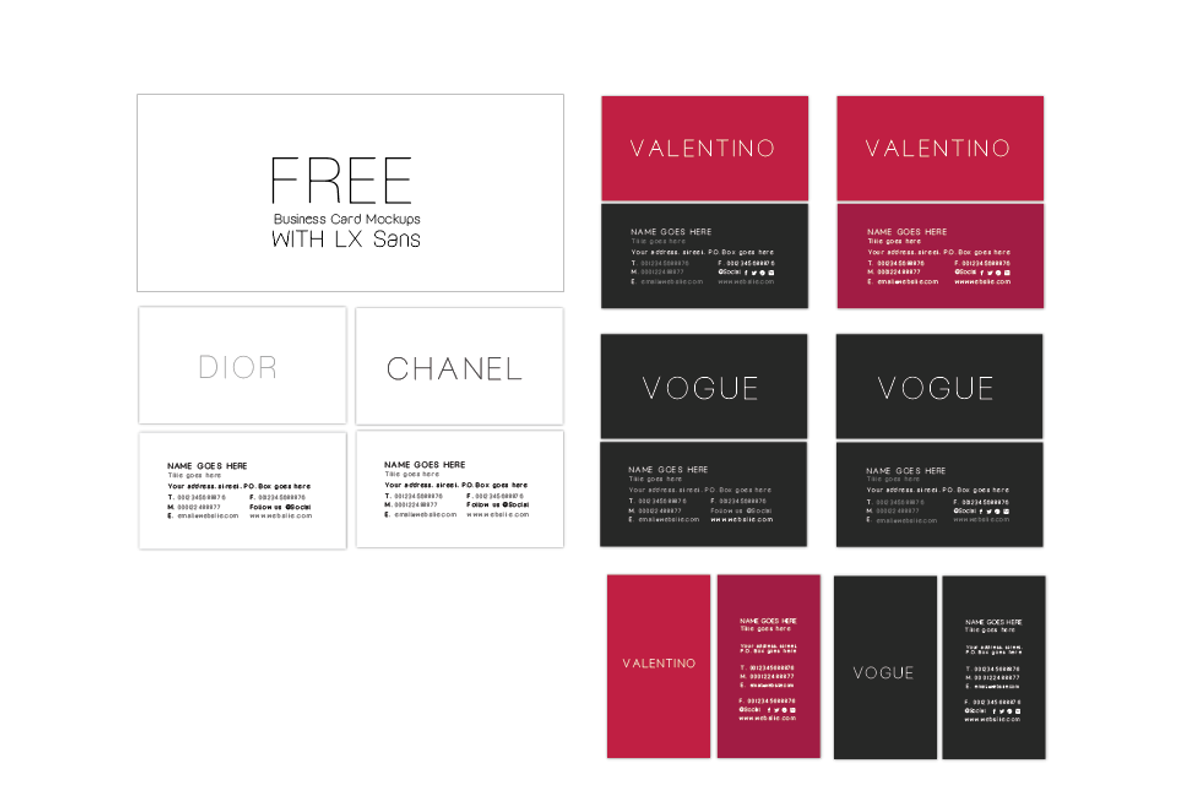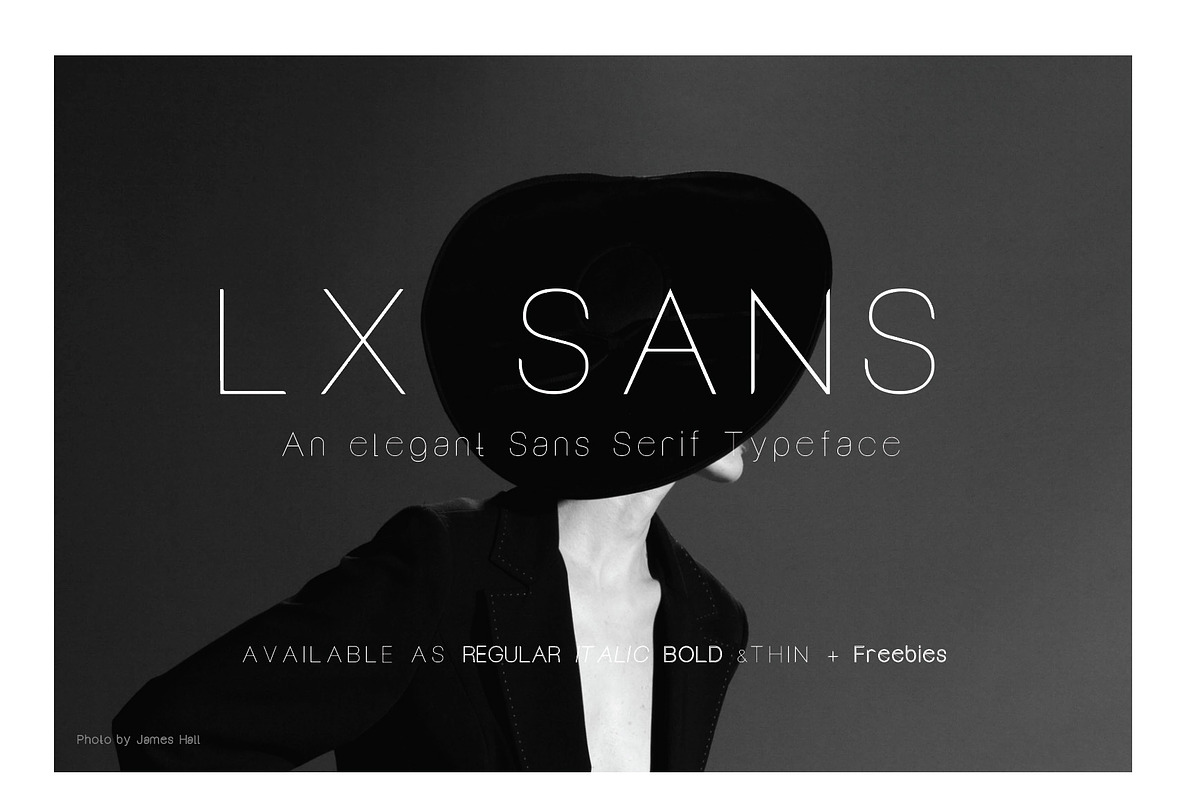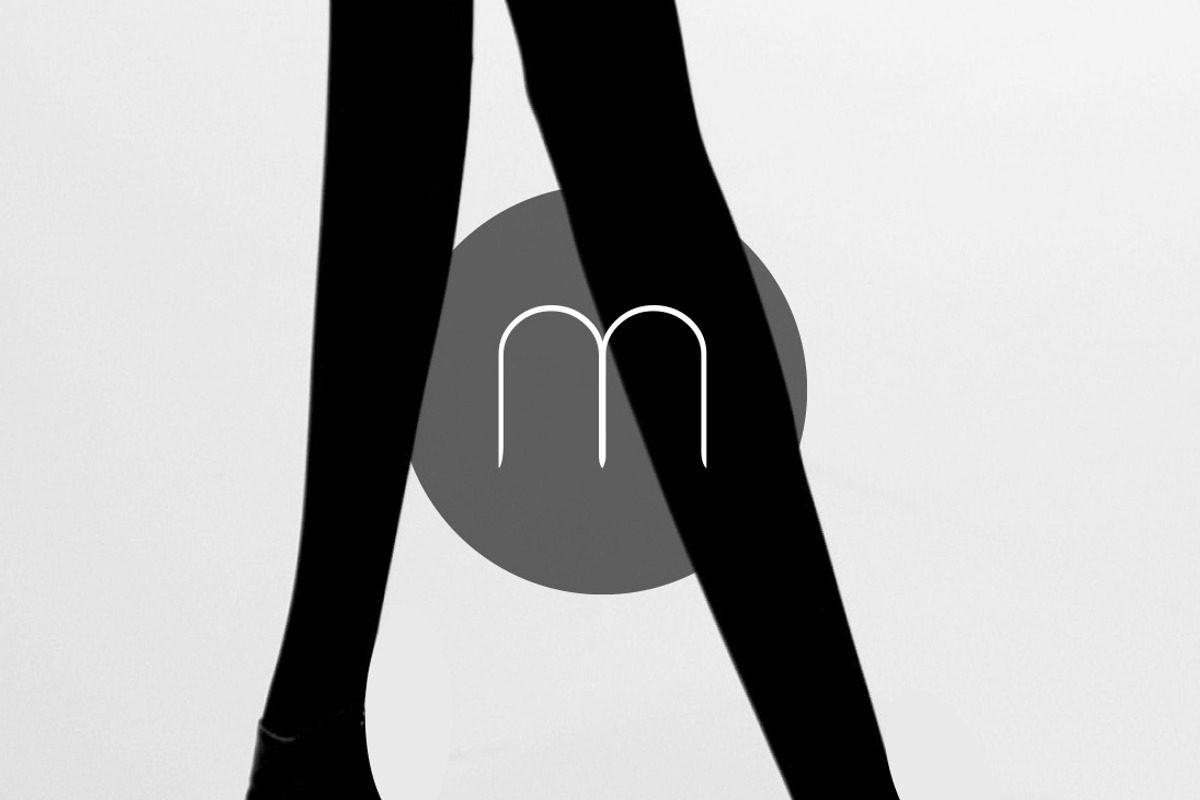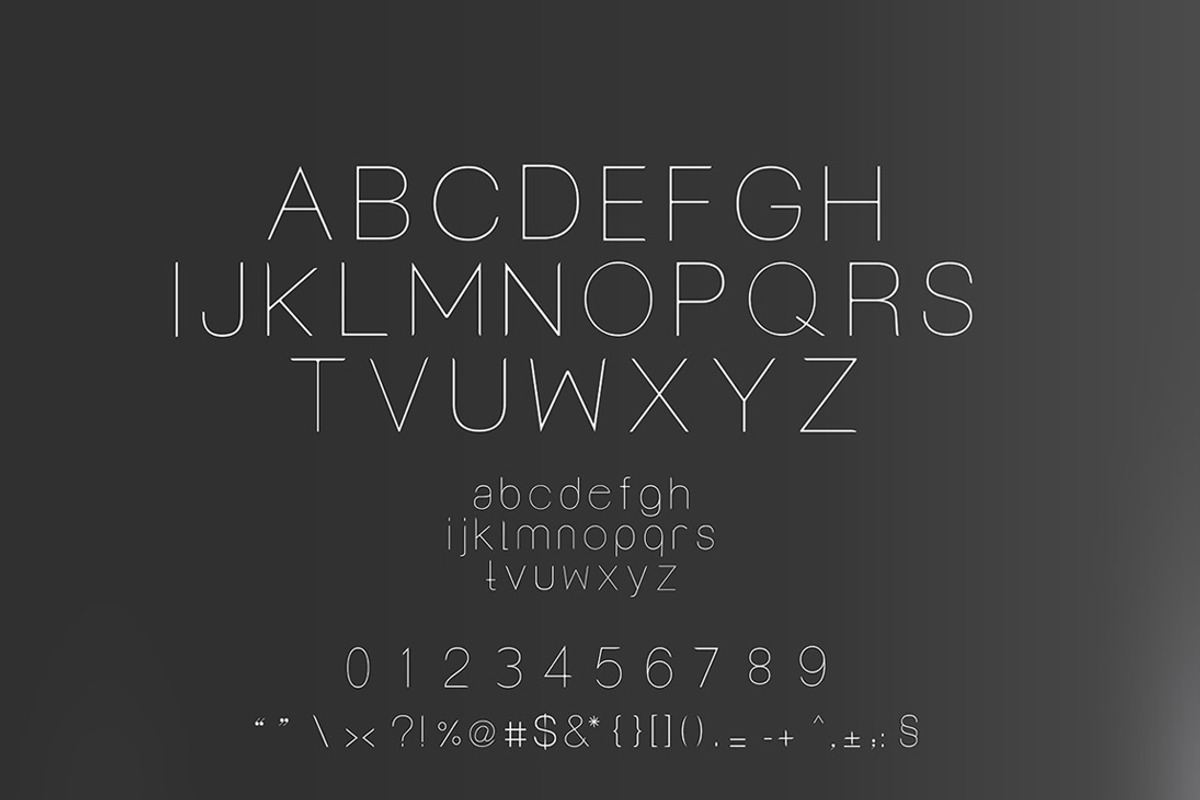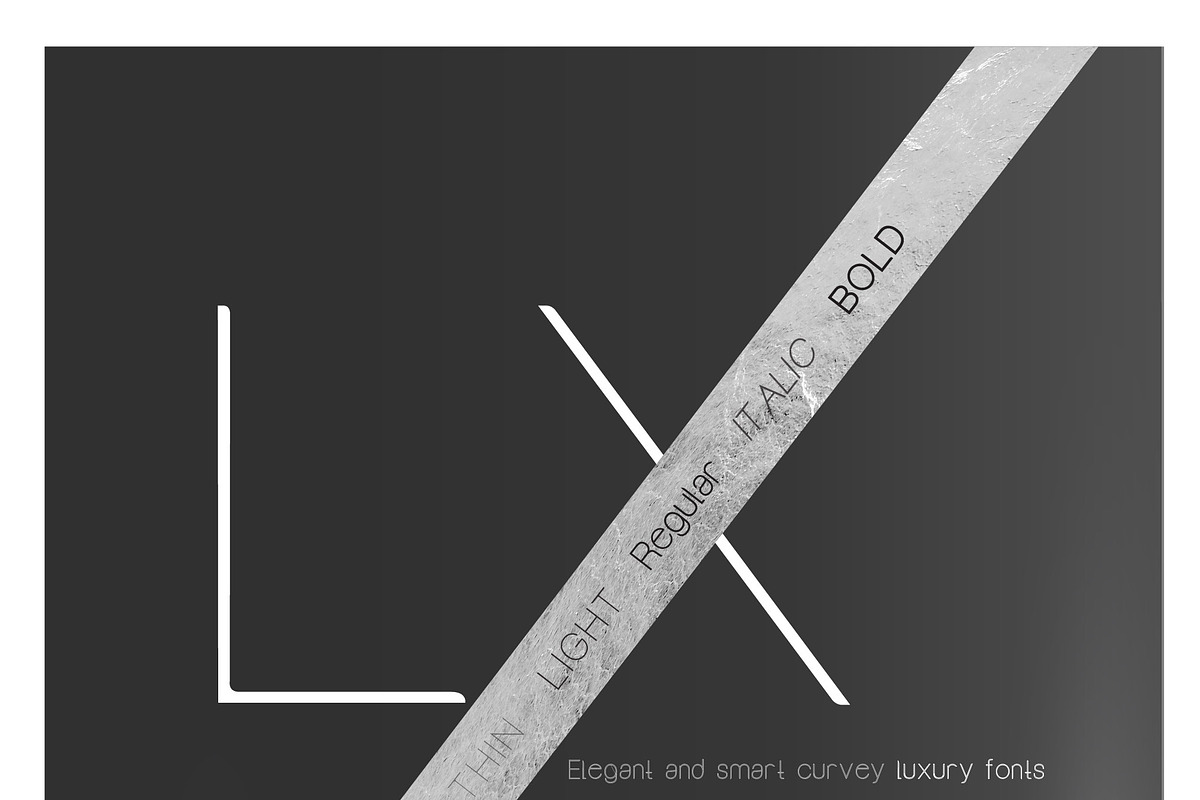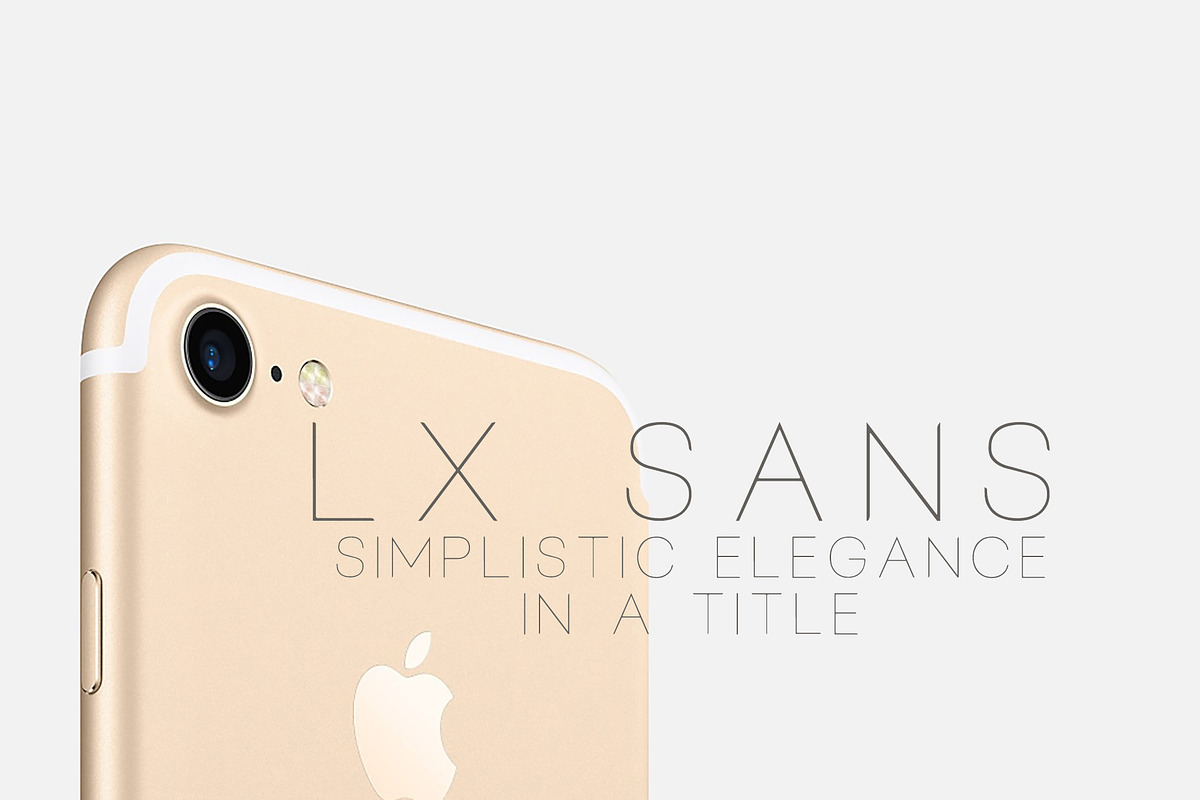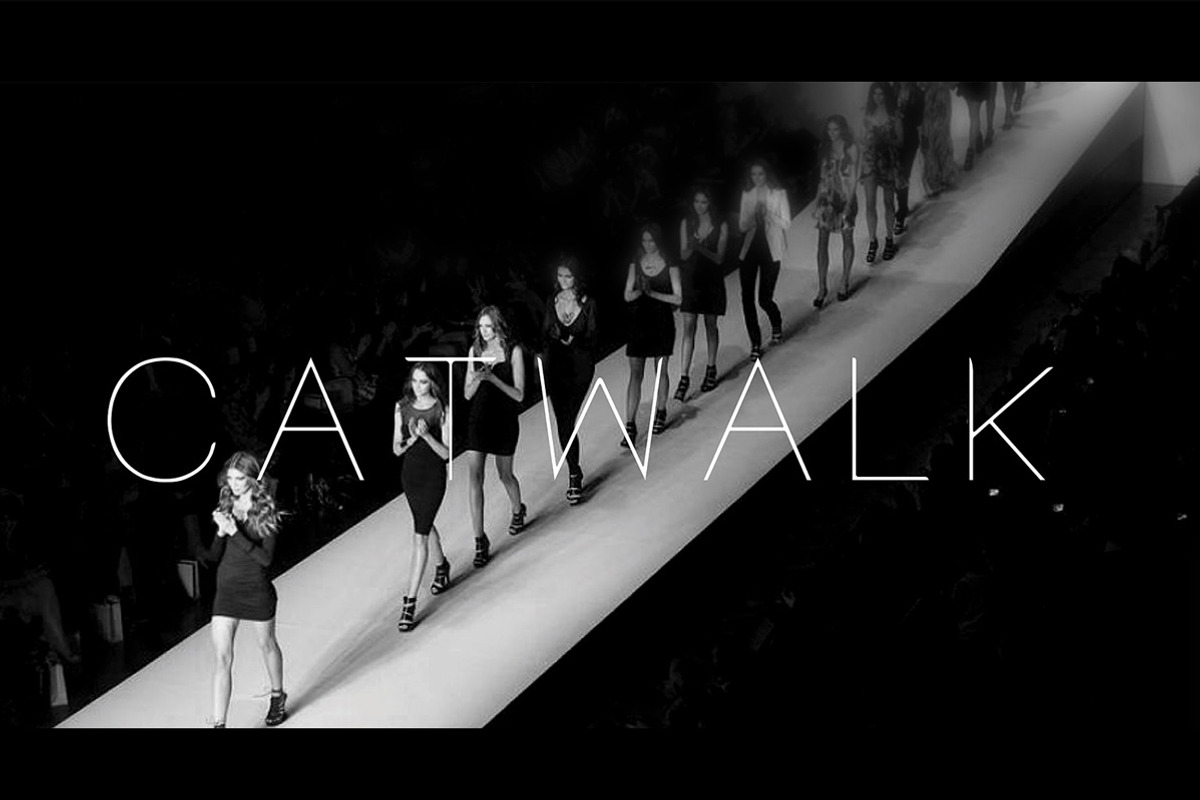
Elegant Luxury Font - LX SANS
Elegant Luxury Font - LX SANS by Made In Nobrand is a font selected for branding, posters, packaging, typography.
Why Elegant Luxury Font - LX SANS is worth a look
Elegant Luxury Font - LX SANS by Made In Nobrand fits naturally into Branding, posters, packaging, typography.